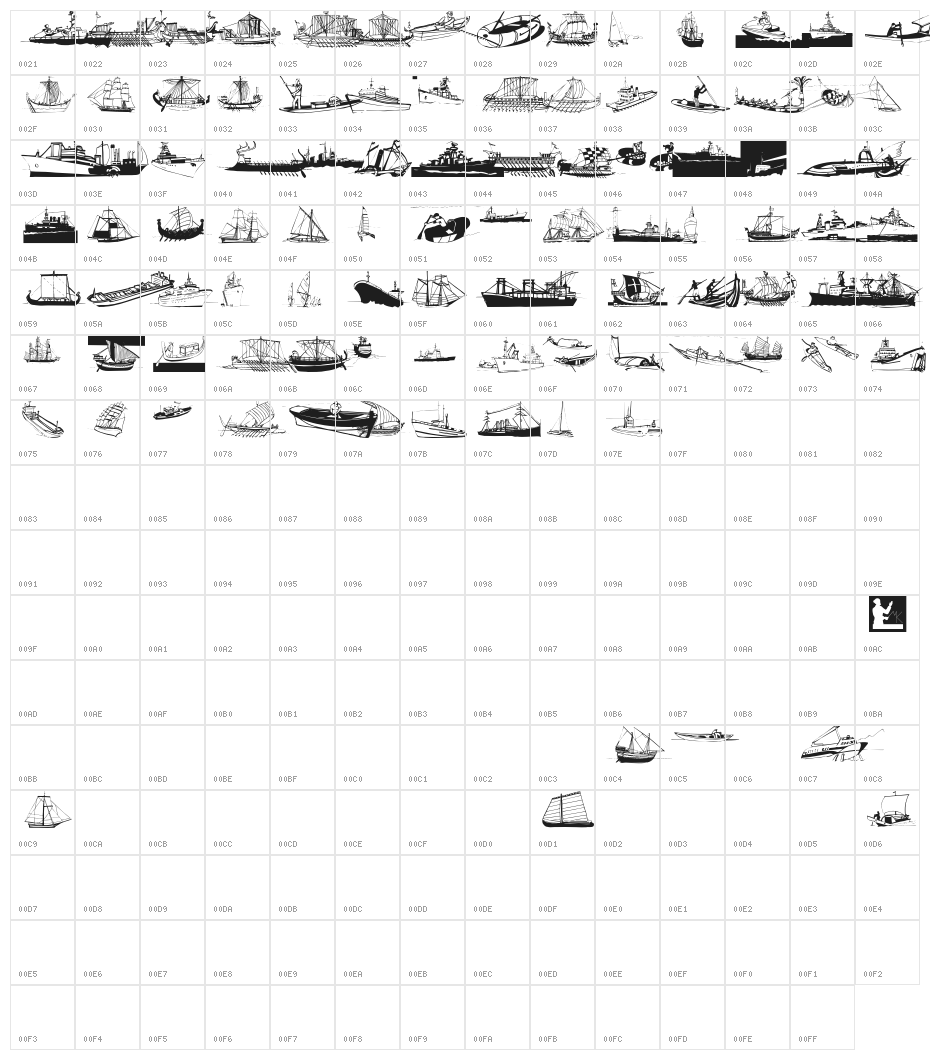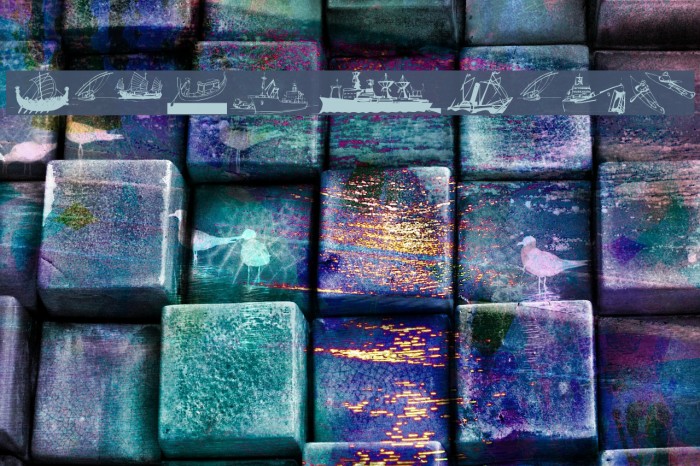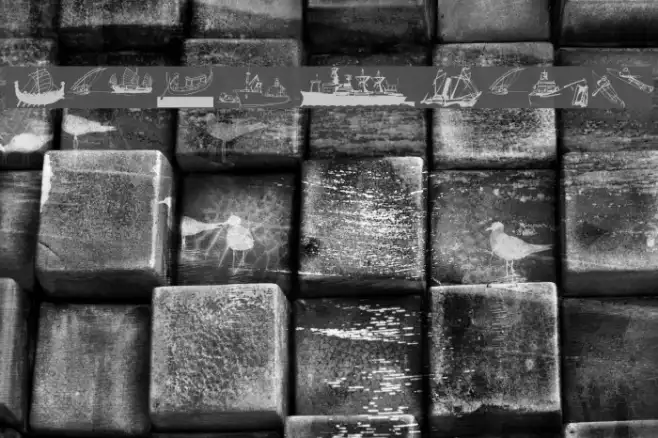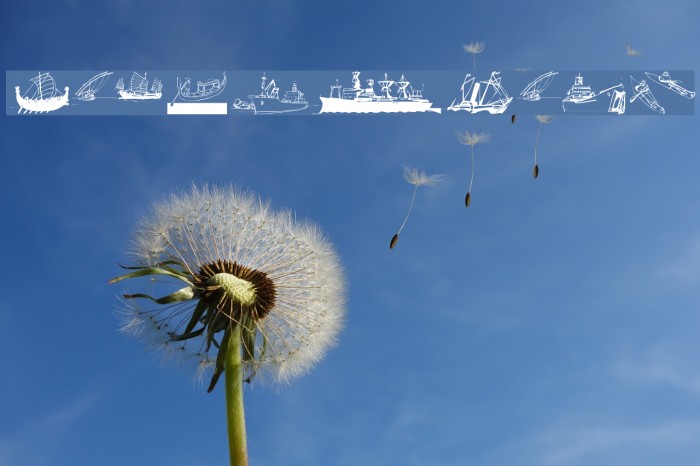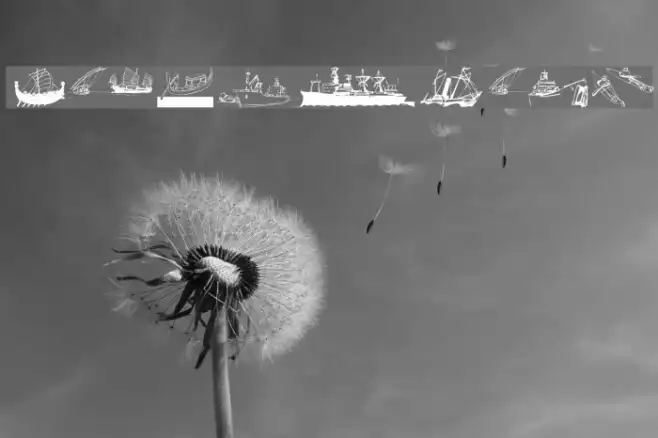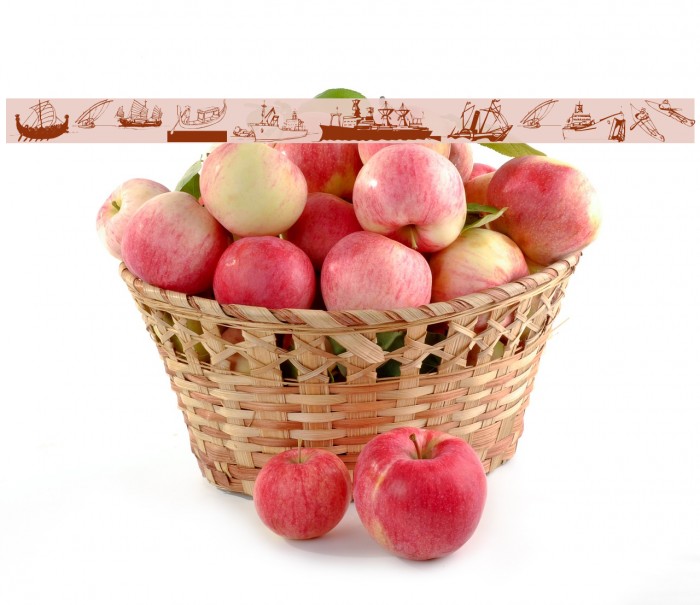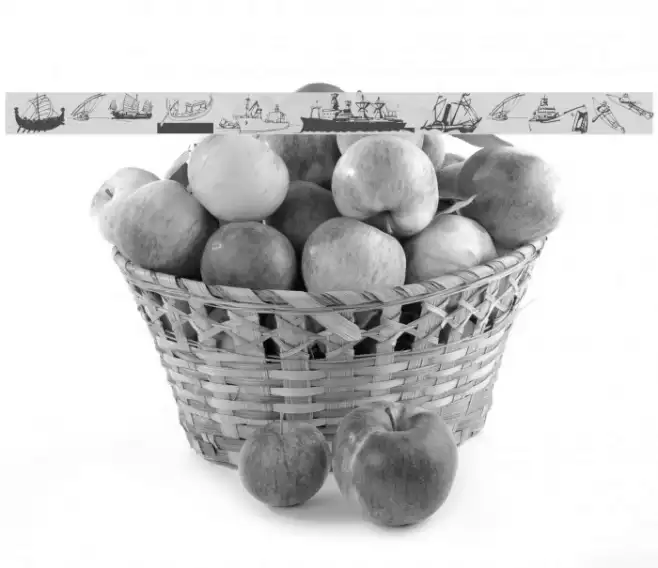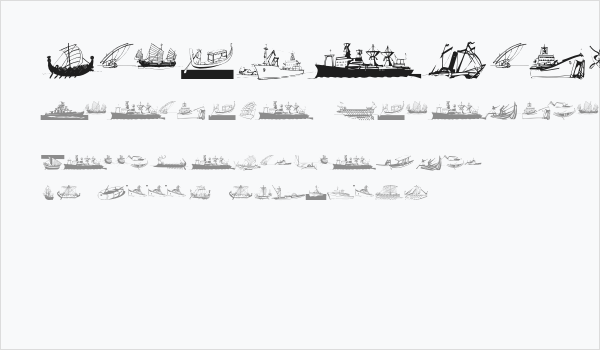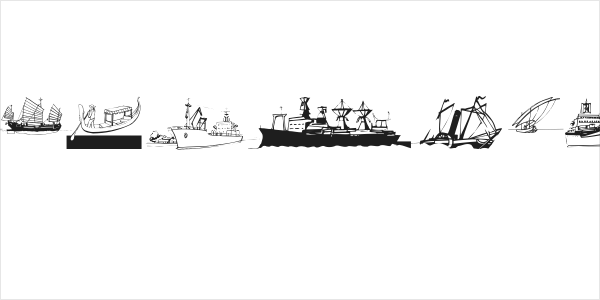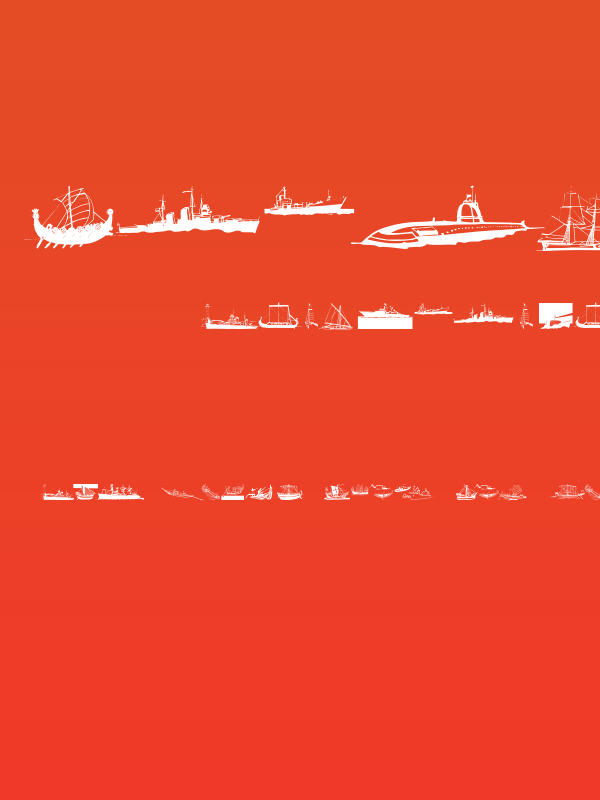
MarineBats Font
MarineBats Description
A decorative display font featuring detailed black-and-white illustrations of various ships and boats, each character represented by a unique maritime vessel. The images are intricate, with fine line work and a hand-drawn appearance, evoking a nautical or historical theme.
| Overall Style | Decorative, Nautical, Hand-drawn |
| Use Case | Logos, Headlines, Themed graphics, Educational materials |
| Proposed Projects | Nautical-themed posters, children's books, event invitations, maritime museum materials, educational resources, decorative headlines. |